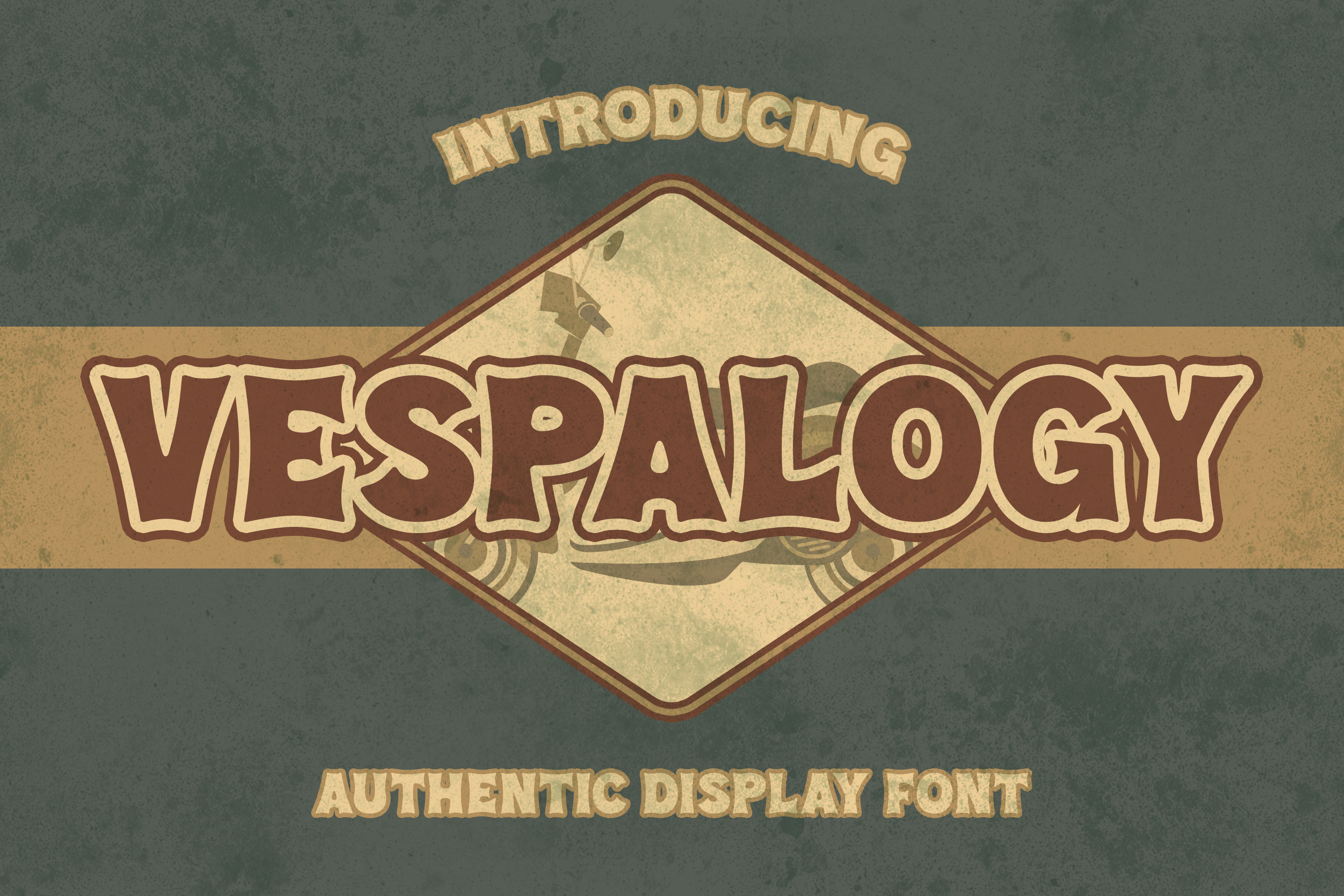
Vespalogy - Authentic Display Font
Vespalogy - Fonts with a vintage touch reminiscent of past designs, making your design needs look unique and classic style. It is perfect for any design project as Invitation,logo, book cover, craft or any design purposes.